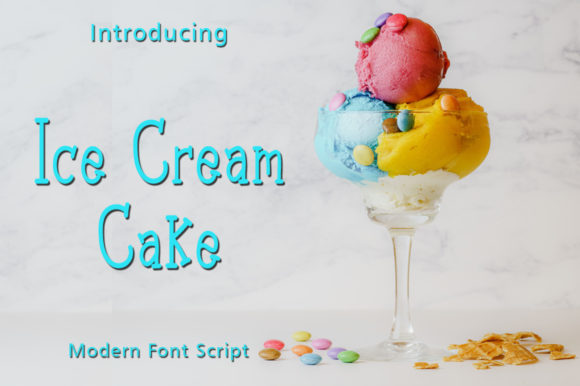
Stroll through your summer memories with the Ice Cream Cake Font, a charming script family that embodies the sweet nostalgia of childhood. Each letter dances across the screen with a playful, handwritten charm, as if written by a child with an ice cream cone in hand.
With its whimsical curves and playful flourishes, the Ice Cream Cake Font will add a touch of vintage-inspired delight to all your projects. Whether you're crafting invitations for a summer party, designing a scrapbook filled with cherished moments, or creating social media graphics that are sure to make your followers smile, this font will bring a smile to your face with its cheerful and endearing style.
Imagine your words taking on a new life, brimming with the carefree spirit of summer. Picture your designs adorned with the Ice Cream Cake Font, evoking the warmth of lazy afternoons and the joy of laughter-filled adventures. Let this font be your creative companion, guiding you through a journey of memories and inspiring you to create something truly special.